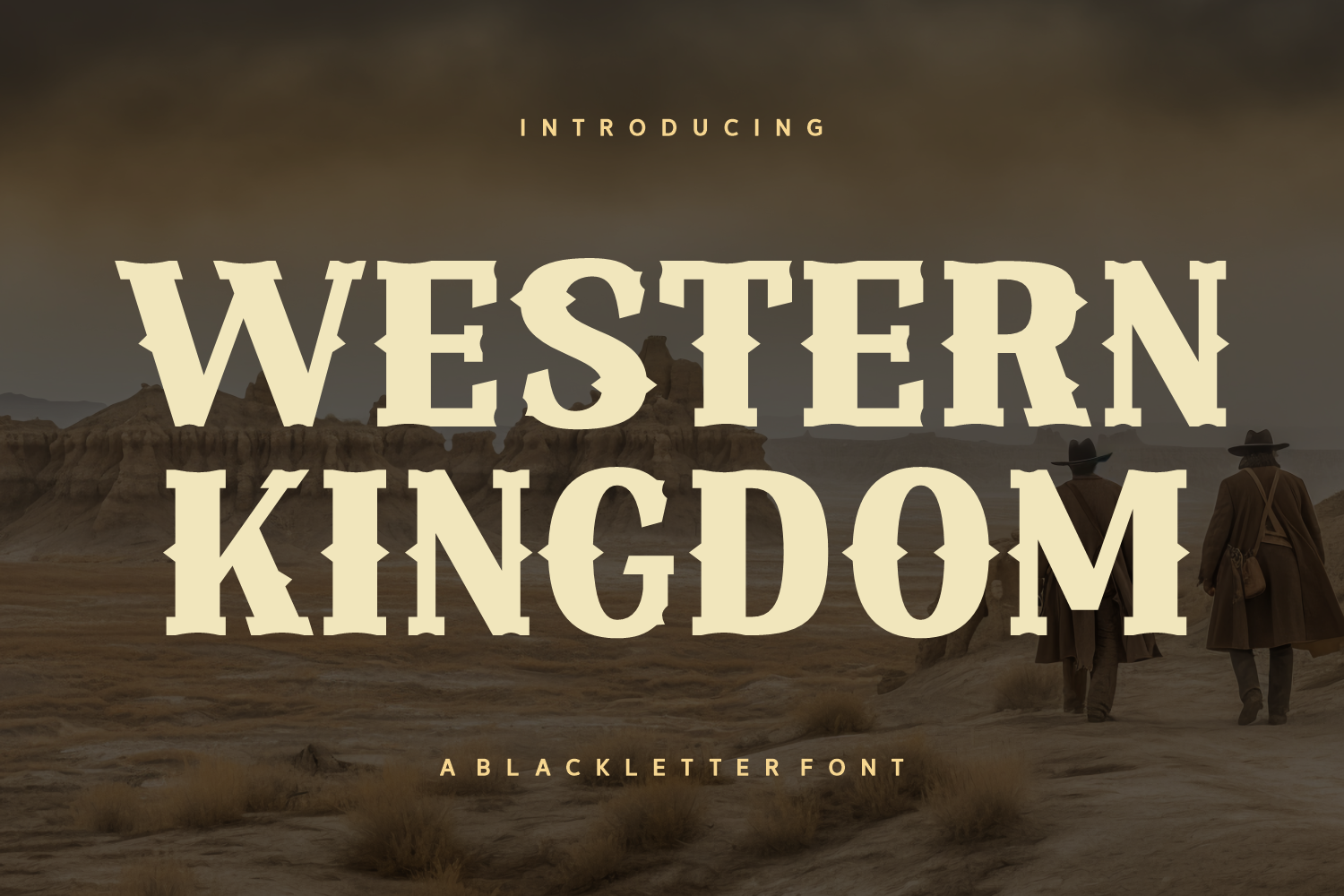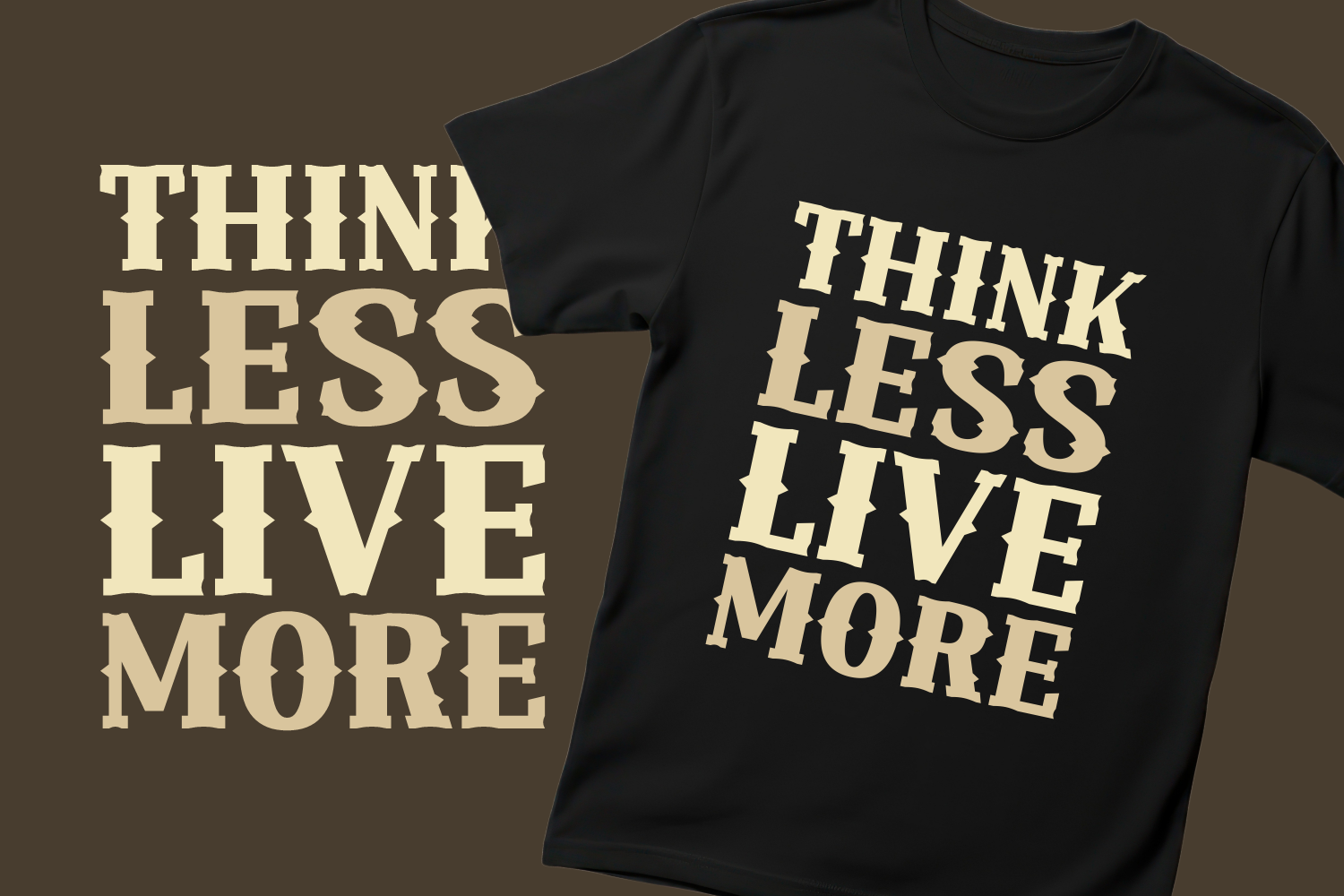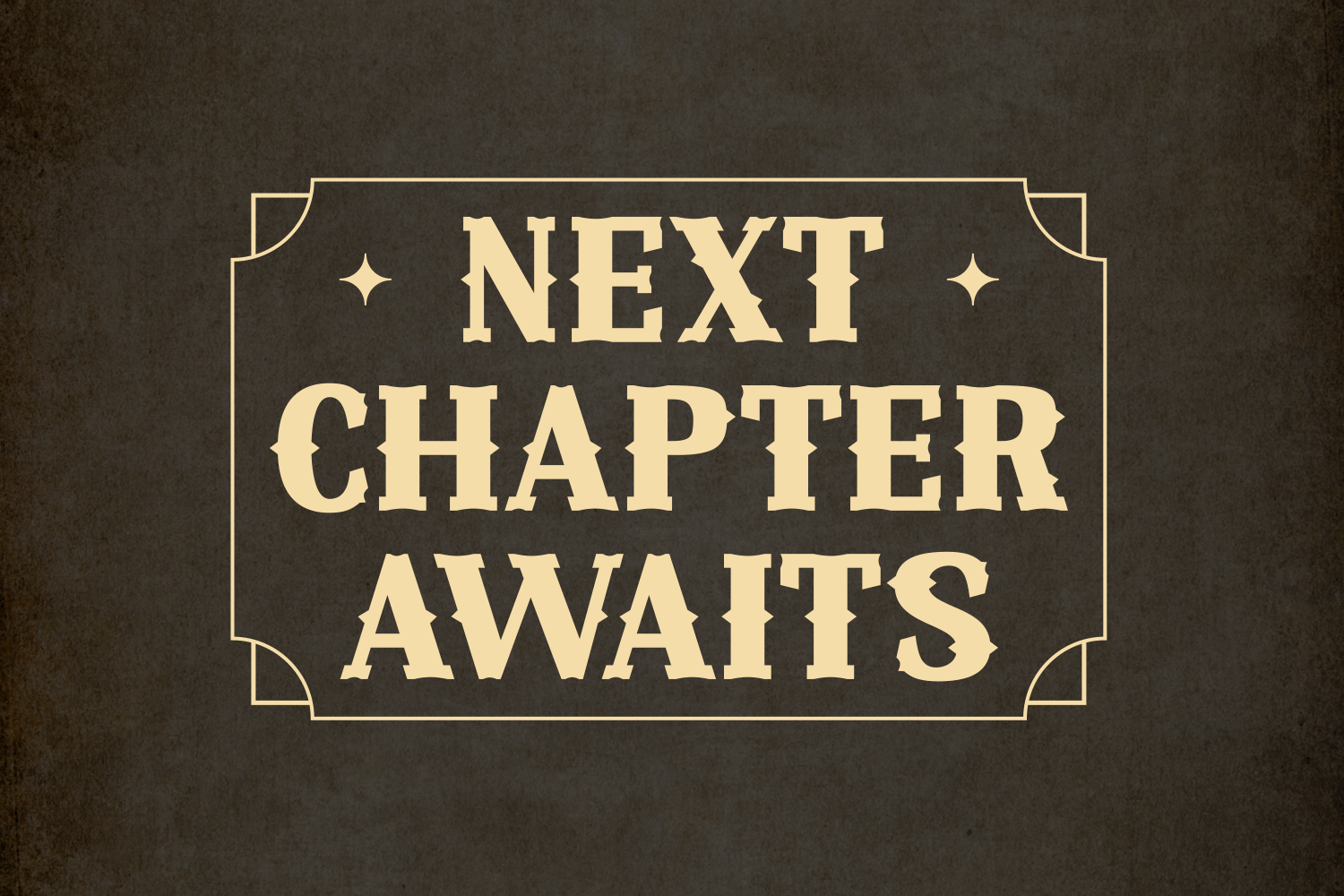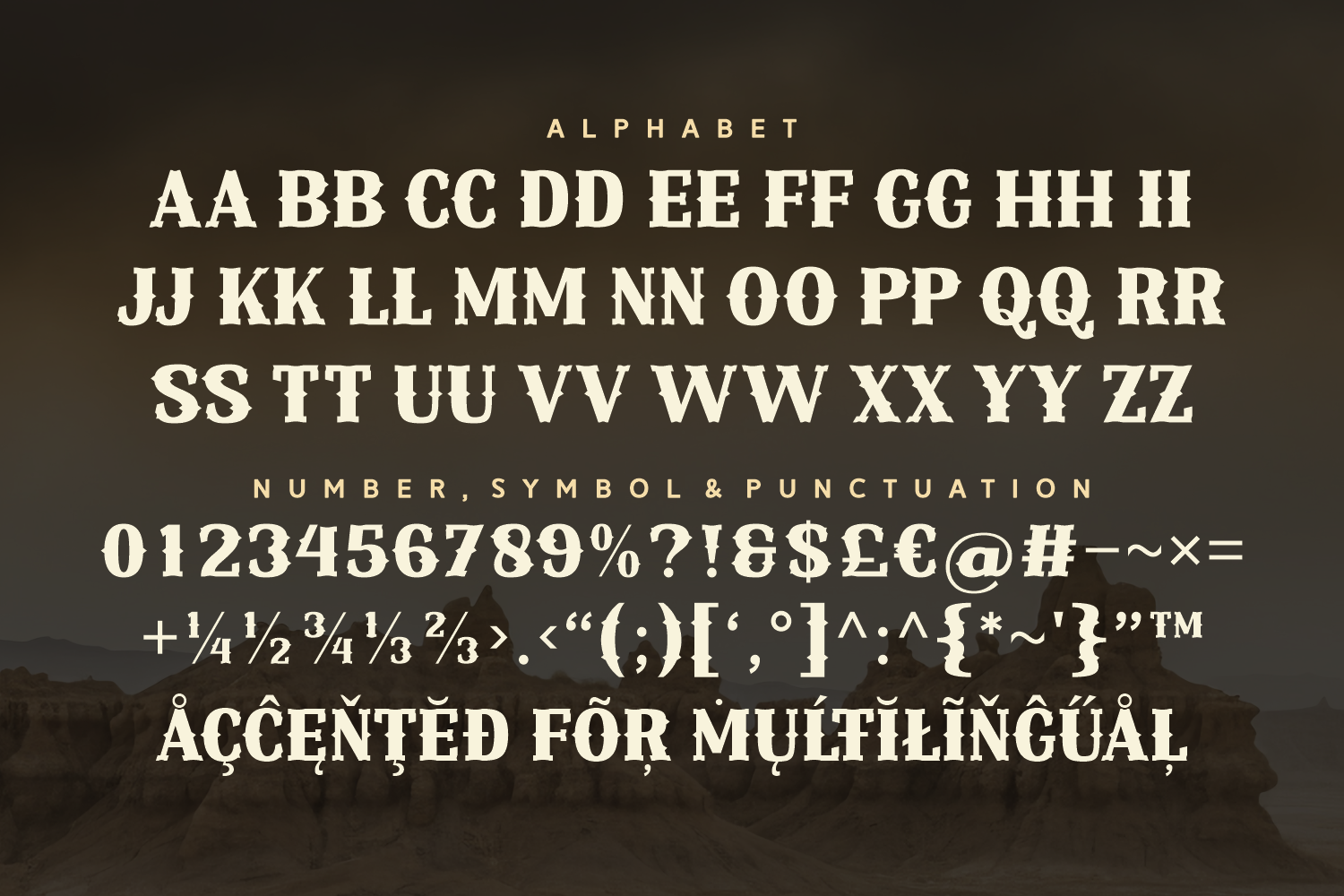
Western Kingdom
Western Kingdom is a blackletter font with a bold Wild West aesthetic, perfect for vintage posters, rustic branding, and adventurous logo design.